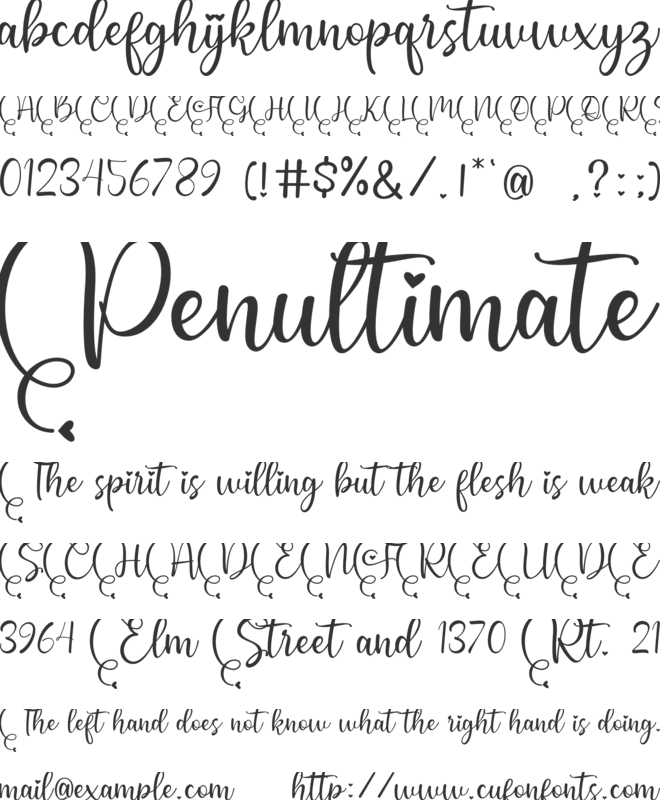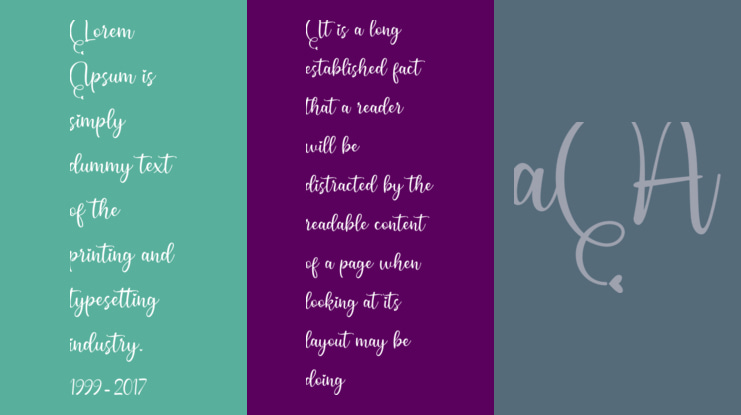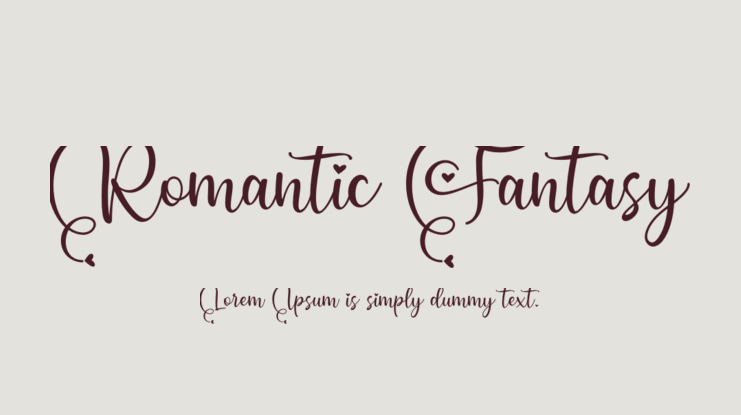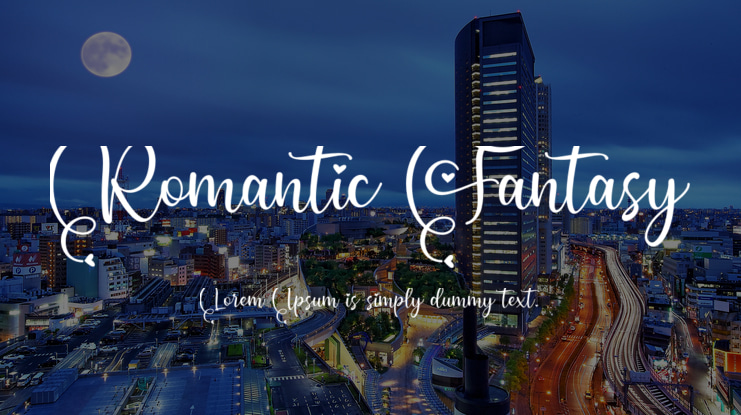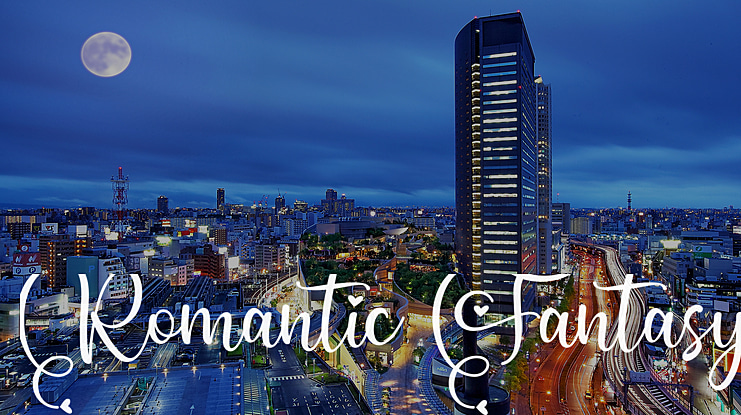
Romantic Fantasy Font
Rizki Typeline Studio 2020
This charming font will turn any creative idea into a standout.
Perfect for all logos, branding, social media, etc.